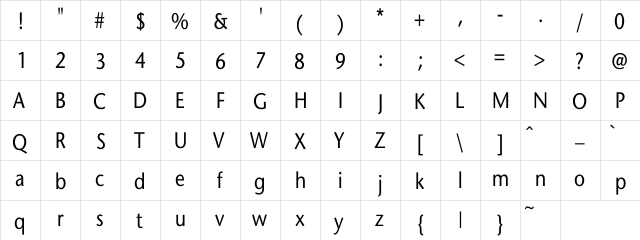
SapirSans Th Regular
Design Context for SapirSans Th Typeface
SapirSans Th is a composed and adaptable typeface that performs quietly and consistently across a wide range of design contexts.